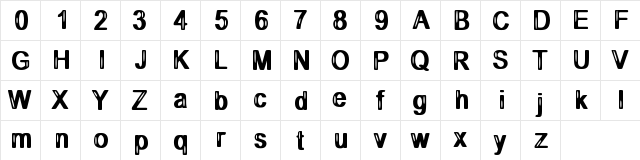
CANDY DROP demo Regular
Design Context for CANDY DROP demo Typeface
CANDY DROP demo is a composed and adaptable typeface that performs quietly and consistently across a wide range of design contexts.
Pro Tip: Use CANDY DROP demo in both headline and body roles to test its range before committing to a single application.